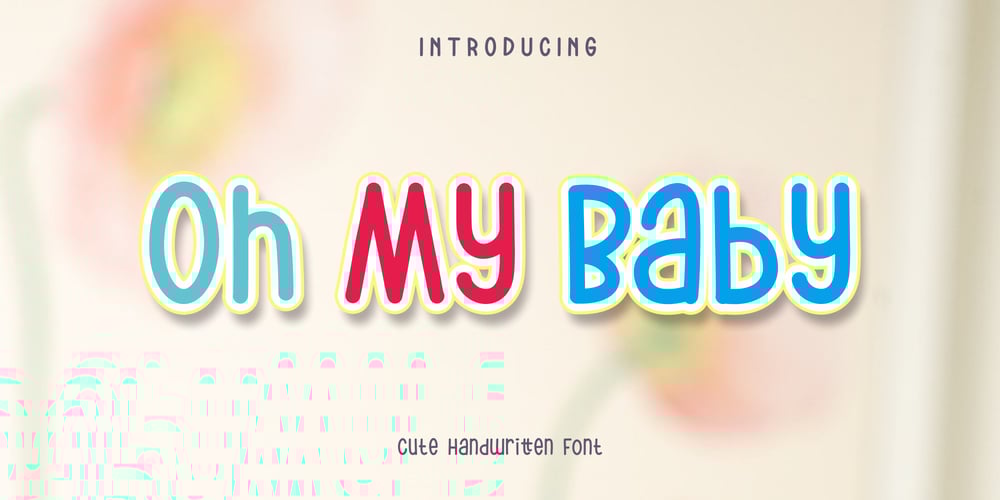
Oh My Baby Font Family was designed by Akhmad Afandhi and published by Evo Studio. Oh My Baby contains 4 styles and family package options. Meet ‘Oh My Baby’, an irresistible mixed-case font that exudes a playful and vibrant energy. Embrace the youthfulness of its quirky letters, making every word an adventure. Its versatility is astounding, making it an ideal match for any style, particularly script fonts. It gracefully balances between bold and regular weights, providing options for various moods and tones. With ‘Oh My Baby’, you have discovered a typographic gem that suits a dynamic range of purposes. Transform any digital or print creation with a sprinkle of fun and creativity brought to you by this lively font. Discover ‘Oh My Baby’, and let your designs tell wonderful stories.